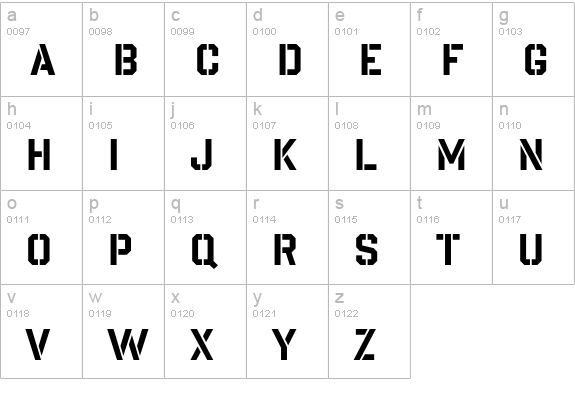
GiantLayers-Background Font Details
GiantLayers-Background font is a striking and bold typeface that commands attention with its unique design. With its towering letters and intricate details, this font is perfect for creating eye-catching headlines, posters, and branding materials. The GiantLayers-Background font features a dynamic layering effect that adds depth and dimension to your designs, making them truly stand out. The best part? This incredible font is available for free download at FontsMarket.com. Now you can elevate your projects with this powerful and attention-grabbing typeface without breaking the bank. Don't miss out on the opportunity to add GiantLayers-Background to your font collection and take your designs to the next level. Download it today and unleash your creativity!